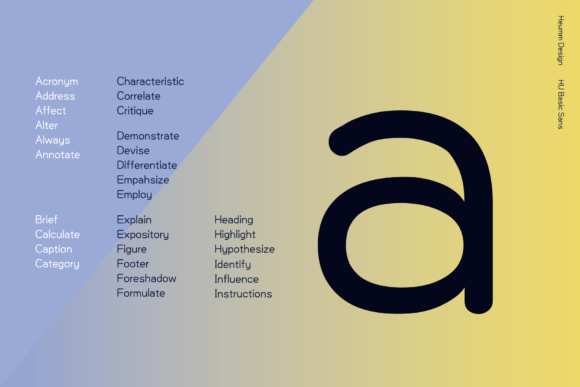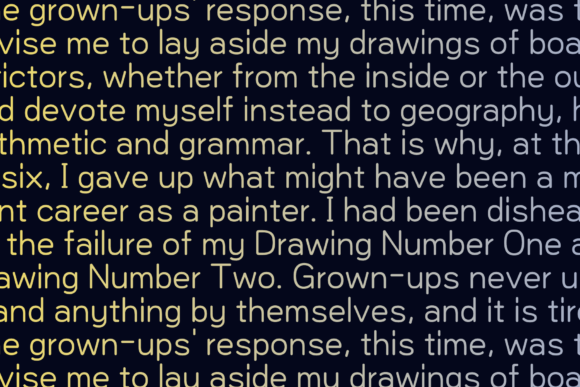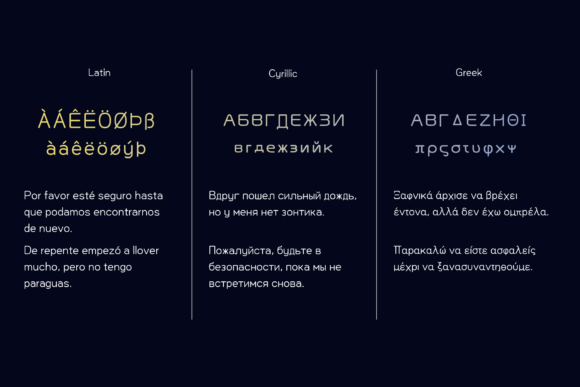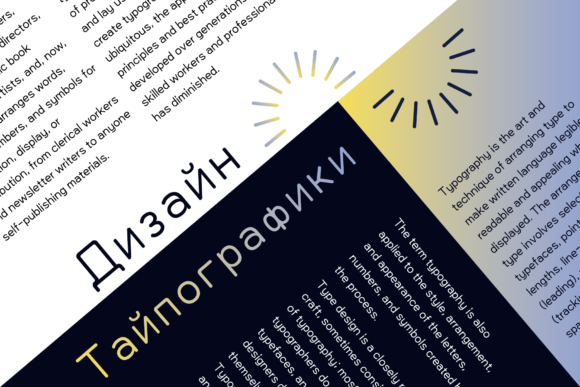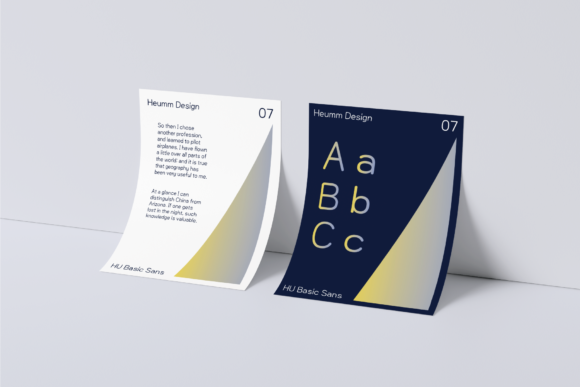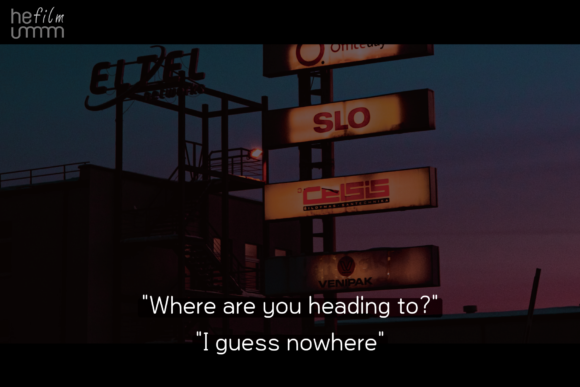
Introduction to HU Basic Sans Font
HU Basic Sans is a clean and modern sans serif font.
It is perfect for any branding project such as logos, t-shirt printing, creative products, and more .
Key Features of HU Basic Sans Font
HU Basic Sans Font offers exceptional quality and versatility, making it a valuable addition to your design toolkit. Whether you’re creating for personal projects or commercial use, HU Basic Sans Font delivers professional results.